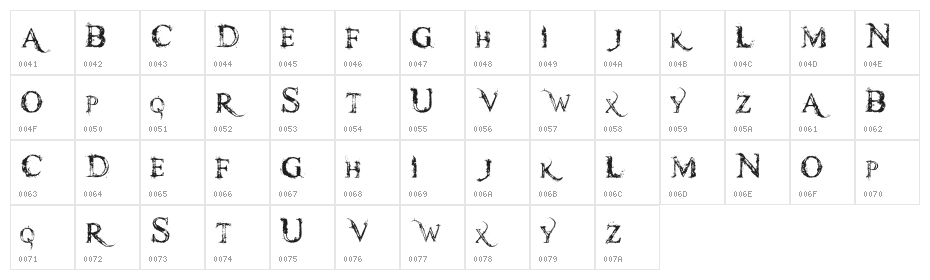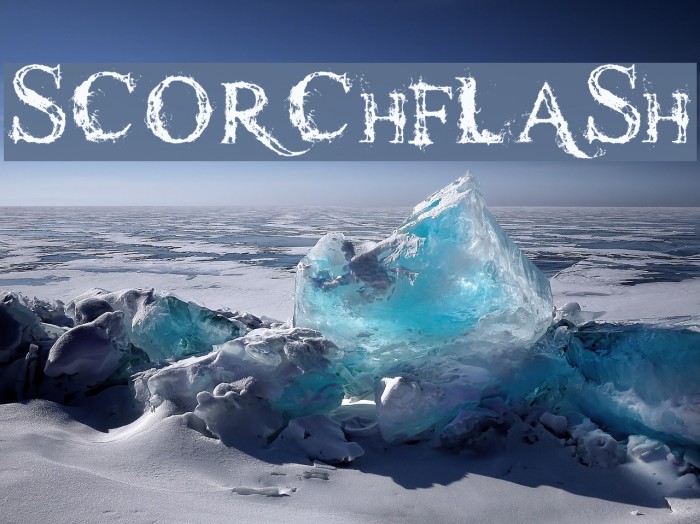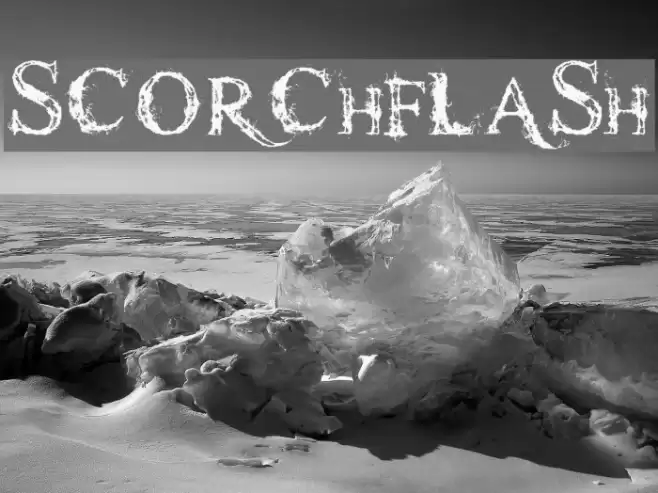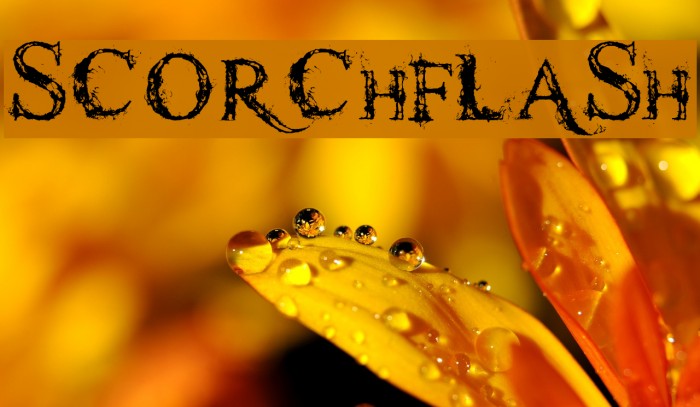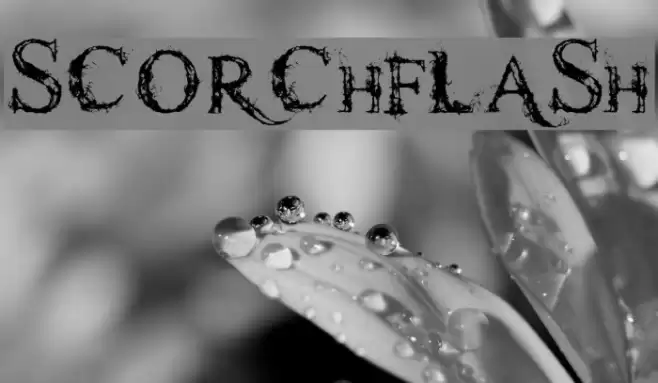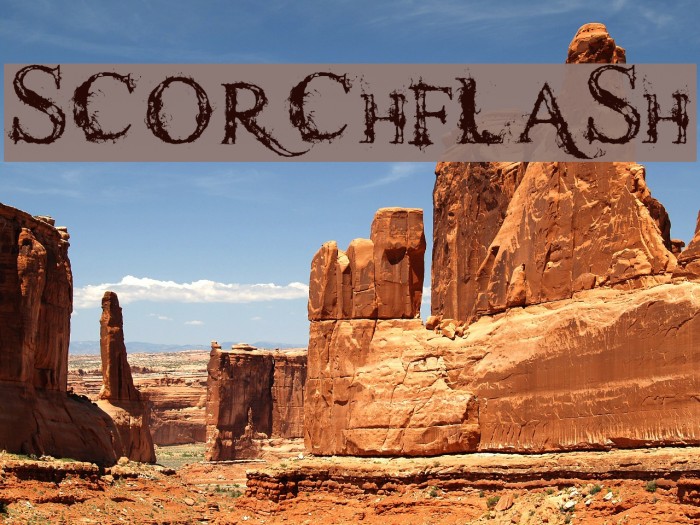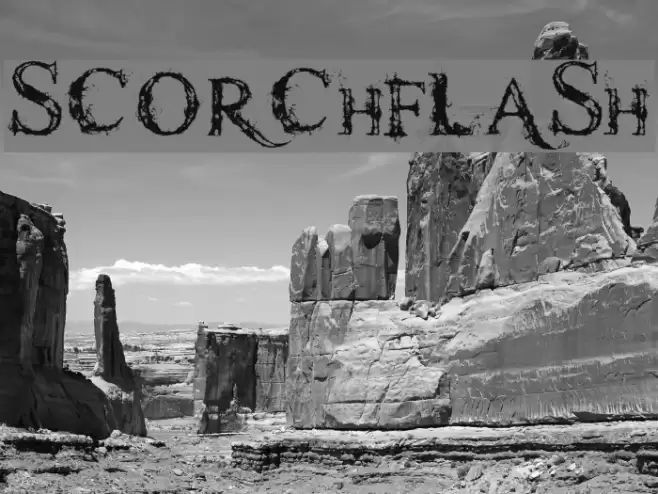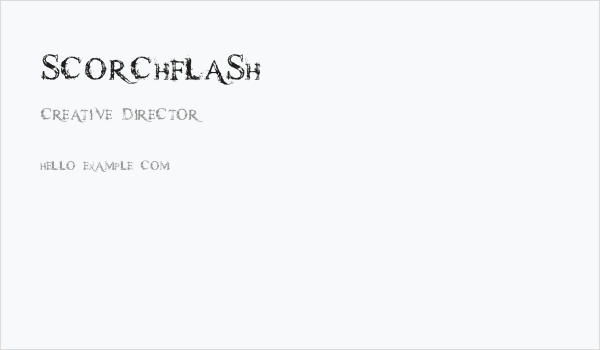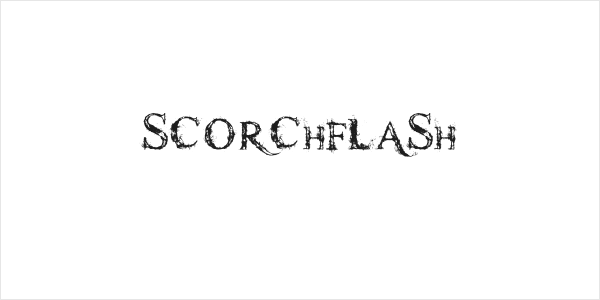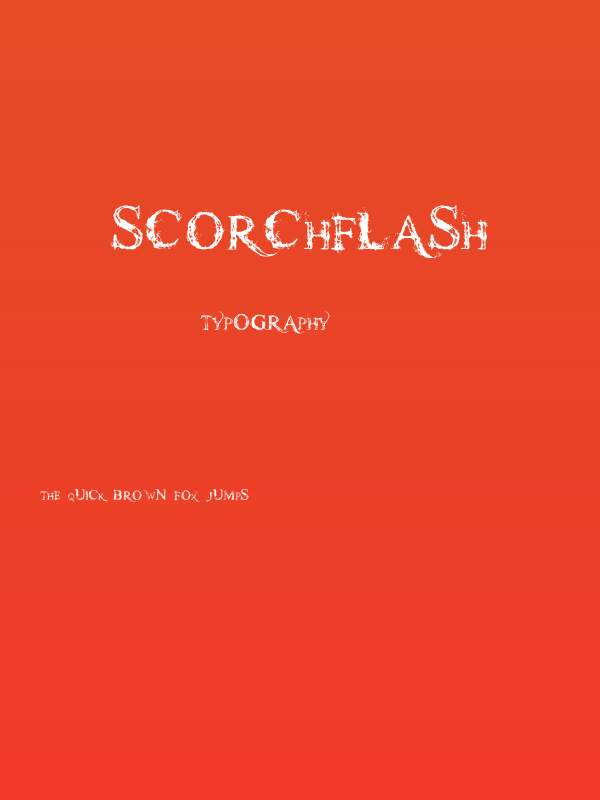
scorchflash Font
scorchflash Description
This font features a distressed and grunge style, with each character appearing as if it has been weathered or burned. The edges are rough and uneven, giving it a chaotic and dynamic appearance. The uppercase and lowercase letters maintain a consistent style, with swirling, flame-like extensions that add to the fiery aesthetic. The numbers and special characters follow the same design, ensuring uniformity across all glyphs. This font is highly decorative, making it suitable for projects that require a bold and edgy statement.
| Use Case | Logos, Posters, Headlines |
| Proposed Projects | Ideal for music album covers, horror movie posters, edgy branding, and any design needing a dramatic flair. |